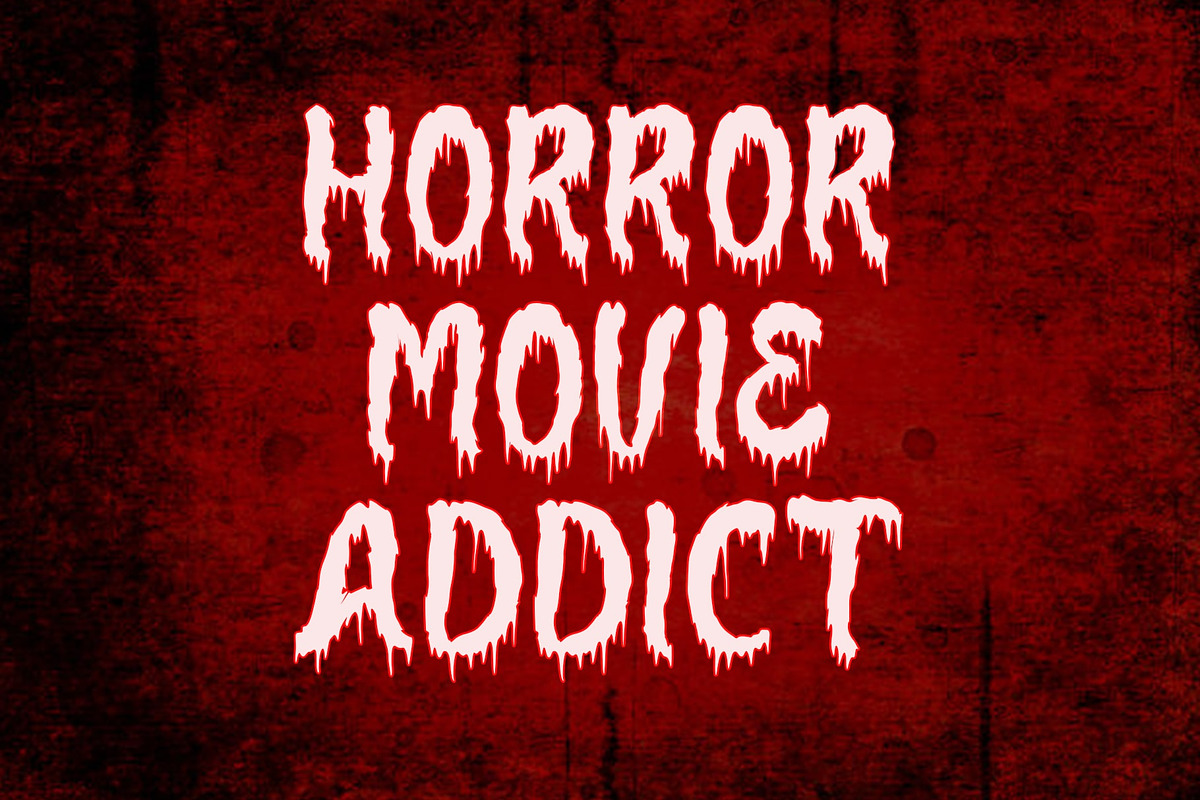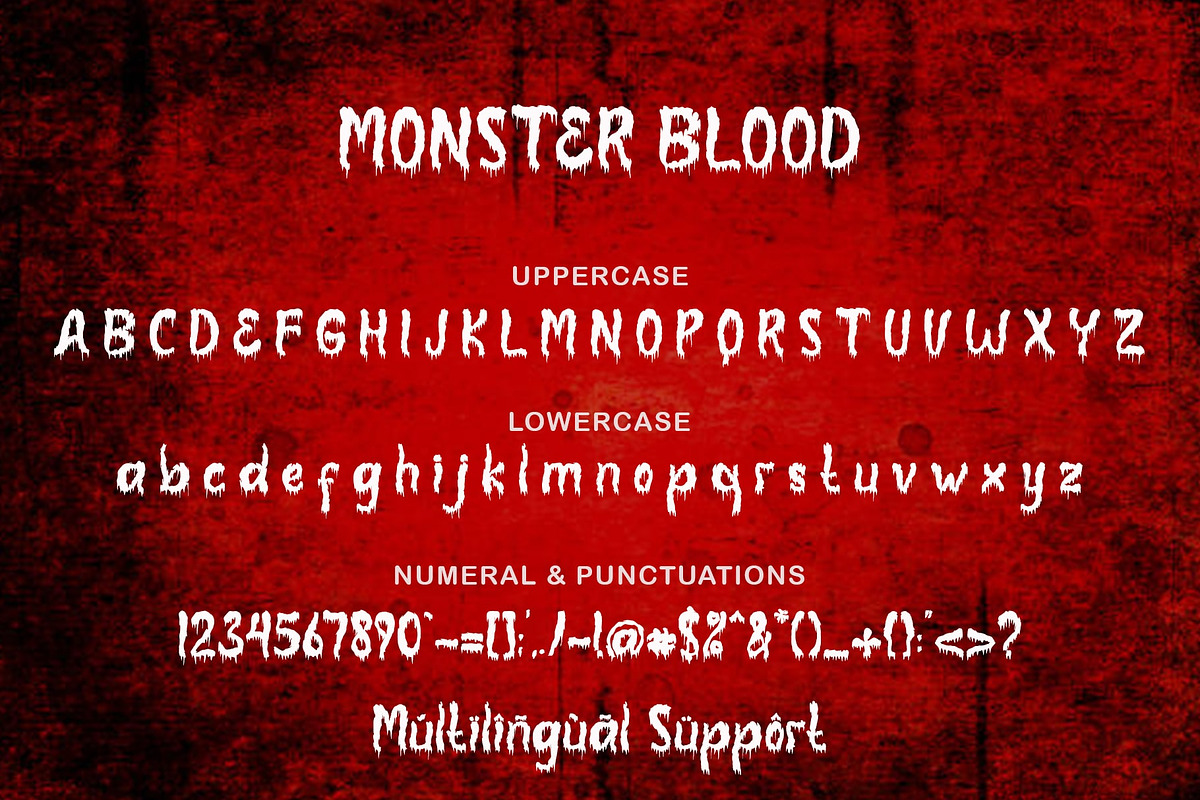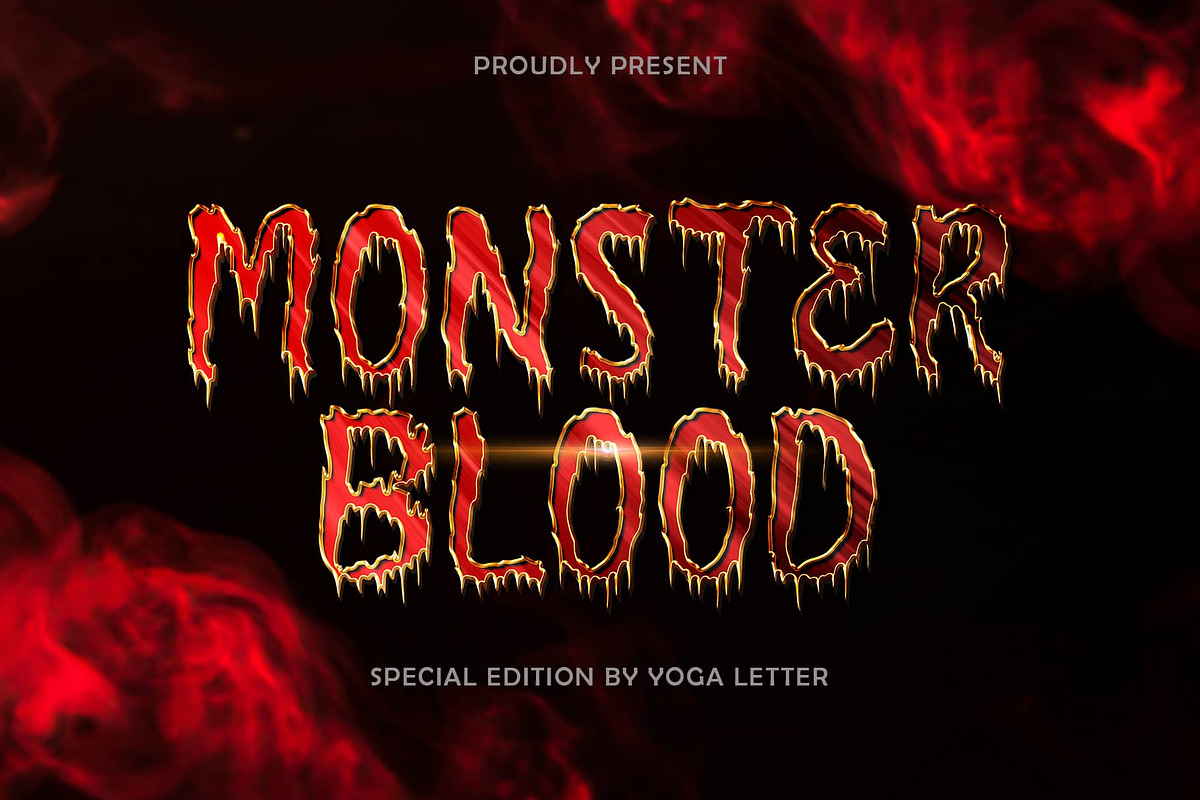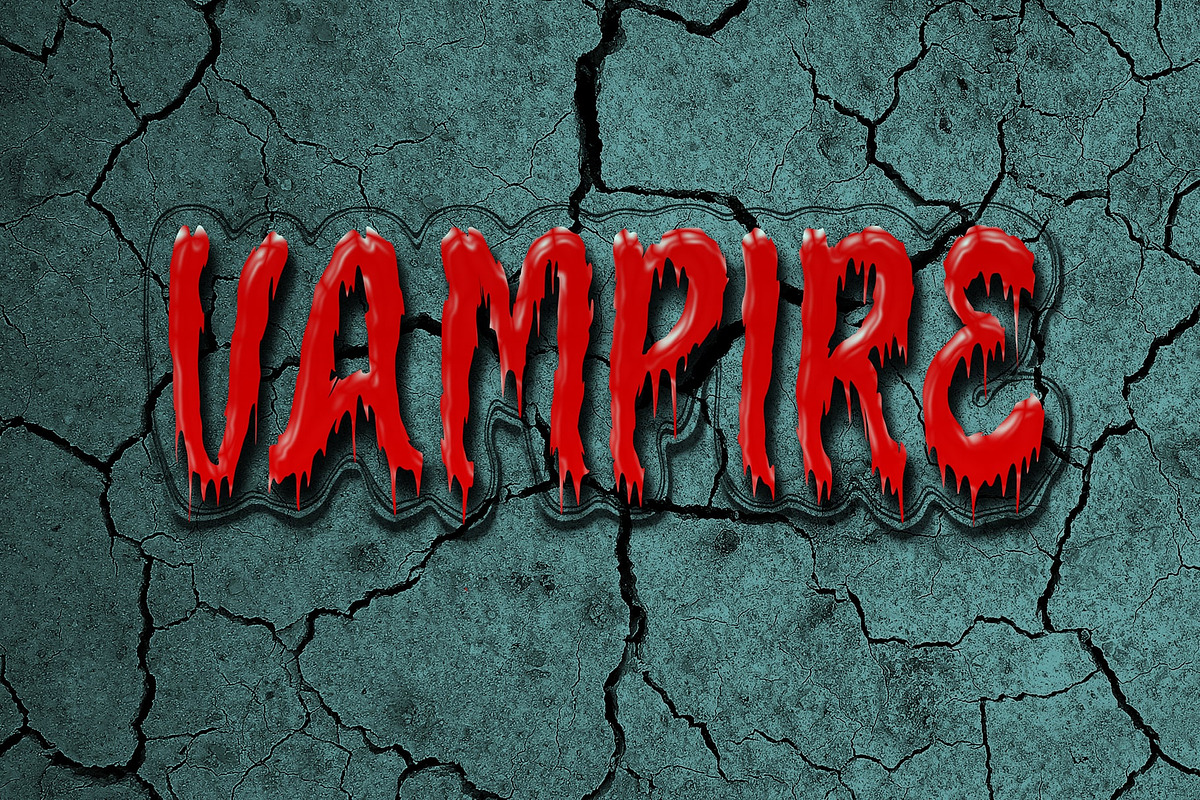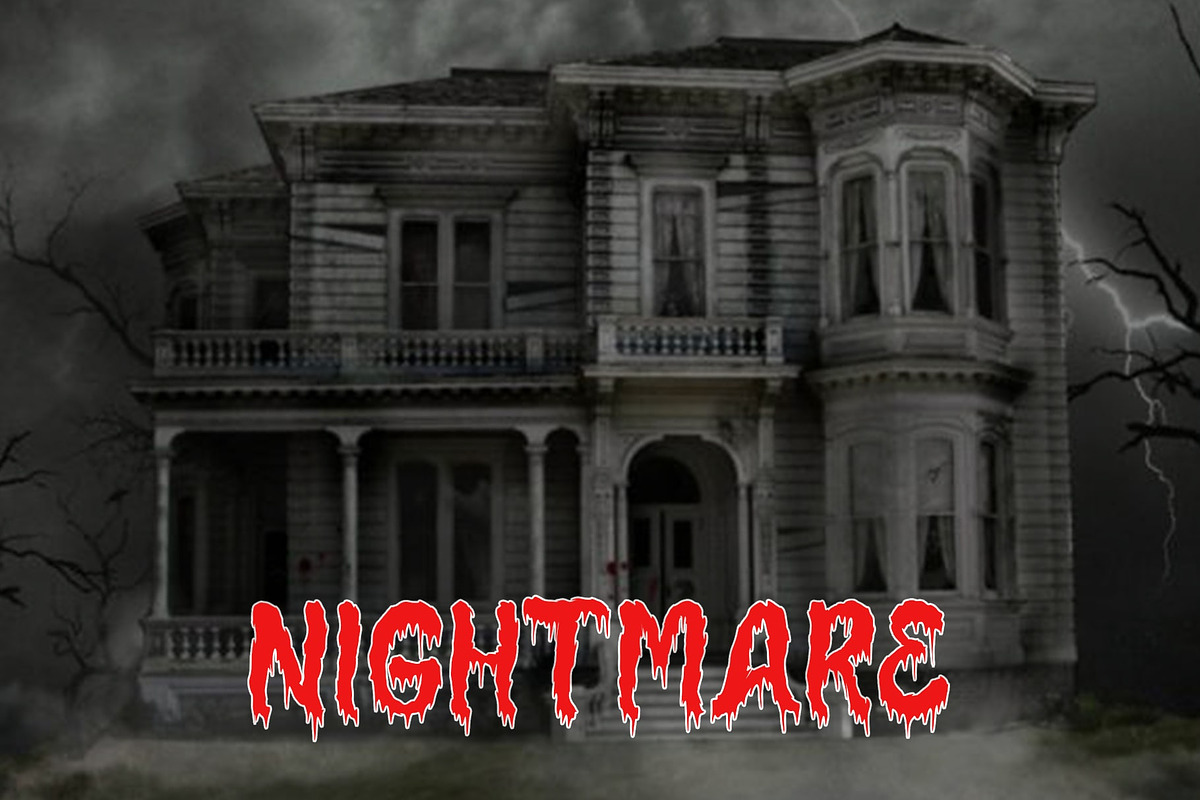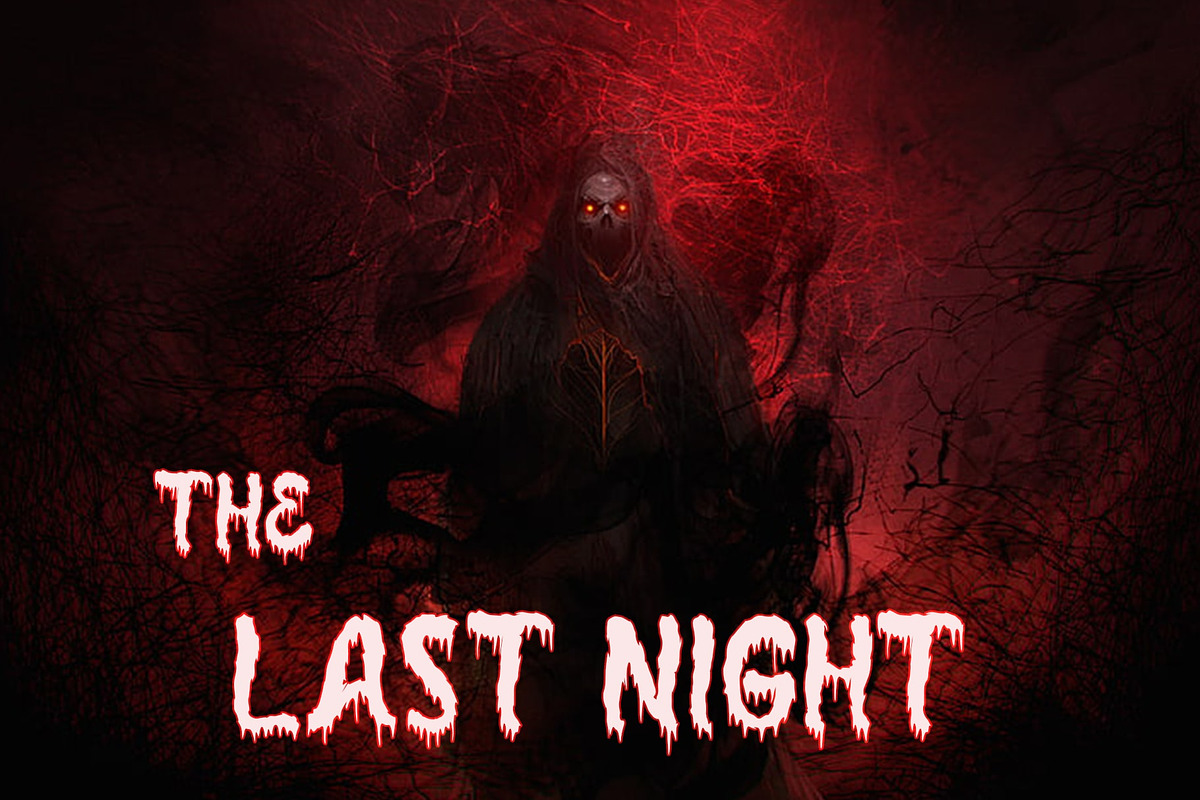
Monster Blood
"Monster Blood" is a unique horror font with a blood-like melt in every letter. This font is perfect for Halloween moments, movie titles, logos, book covers, horror stories and more. "Monster Blood" comes with lowercase, uppercase, multilingual support, numerals, and punctuations.